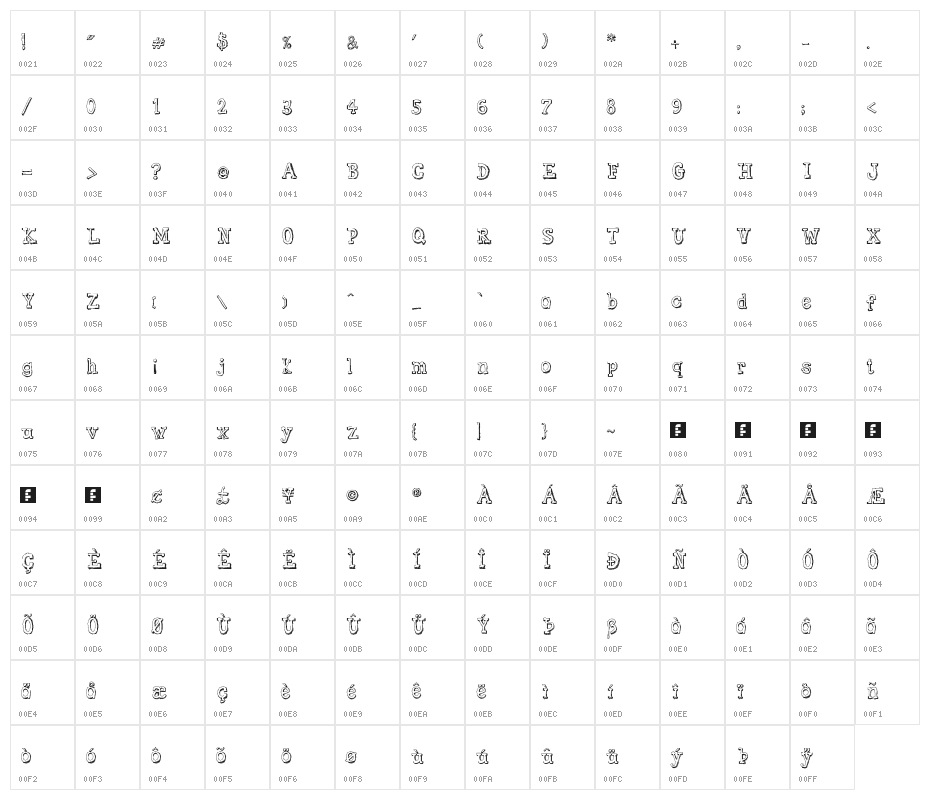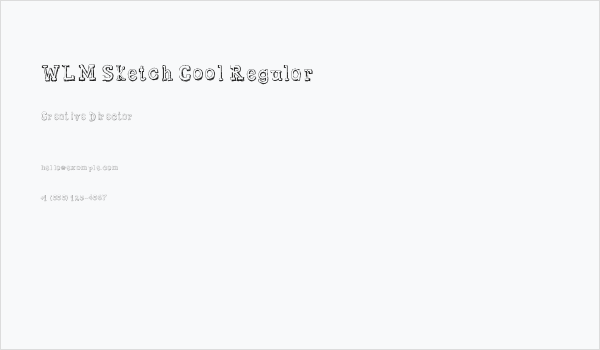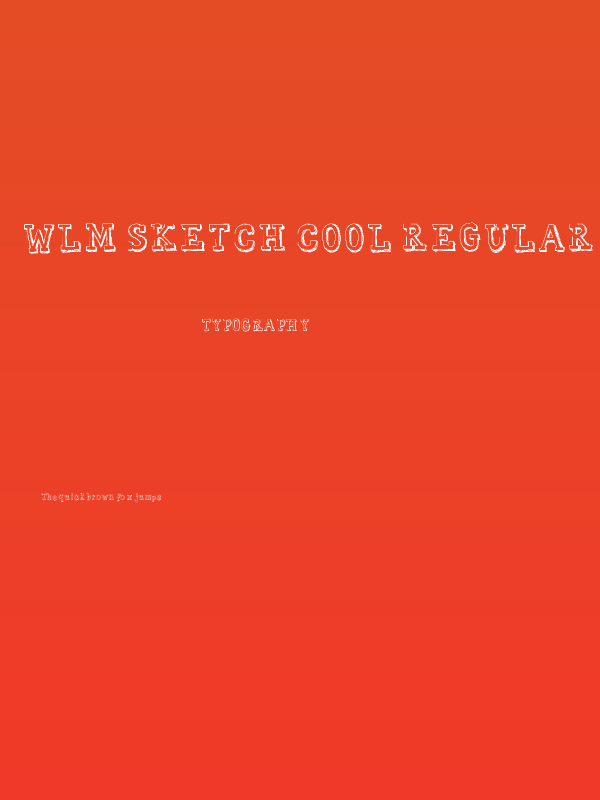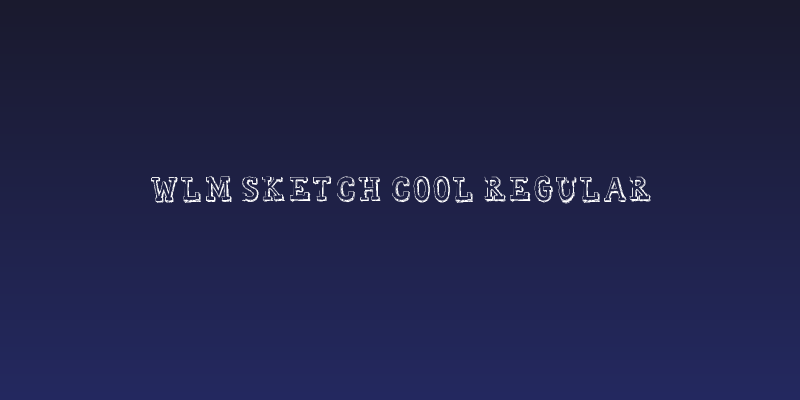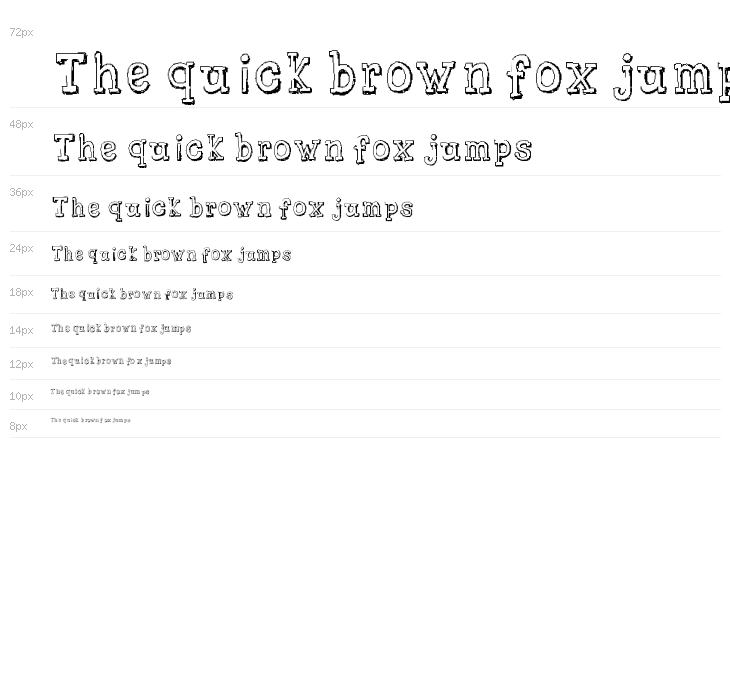
WLM Sketch Cool Regular Font
WLM Sketch Cool Regular Description
This font features a playful and sketch-like appearance, characterized by its hand-drawn aesthetic. Each letter is outlined with a slightly uneven stroke, giving it a casual and artistic feel. The uppercase and lowercase letters maintain a consistent style, with rounded edges and a whimsical touch. Numbers and special characters follow the same design, ensuring a cohesive look across all text elements. The font's unique style makes it stand out, adding a creative flair to any project.
| Proposed Projects | Ideal for creative projects such as children's books, artistic posters, and casual branding materials. |